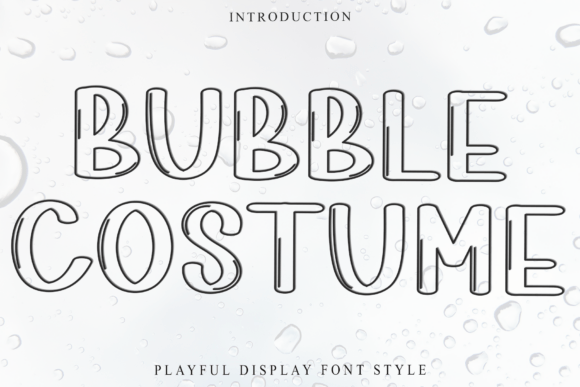
Bubble Custom Font: Elevate Your Designs with a Unique and Eye-Catching Style
In the world of typography, fonts play a crucial role in making designs stand out. One such font that has gained popularity for its distinctive and soft touch is the Bubble Custom Font. Designed to be both beautiful and eye-catching, this font has carved a niche for itself in the realm of creative projects. Whether you’re working on design projects, crafts, or other creative works, Bubble Custom Font is a versatile choice that can add a special character to your creations.
What Makes Bubble Custom Font Special?
The Bubble Custom Font is distinguished by its unique strokes, which give it a special character. This distinctive feature makes it not just another font but a meaningful addition to any design project. The soft and unique touch of this font can transform your designs, making them more appealing to a wide range of audiences. Its versatility is one of its strongest points, allowing it to be used across different artistic and creative fields.
One of the key features of the Bubble Custom Font is its set of various characters. This variety allows designers to experiment with different styles and combinations, making it perfect for projects that require a bit of creativity and innovation. Whether you’re designing a logo, crafting a greeting card, or working on a comprehensive branding project, this font can be a valuable asset.
Applications of Bubble Custom Font
For digital designers, this font can enhance website content, social media graphics, and digital advertisements. Its readability and unique style make it perfect for headlines, titles, and any text that needs to stand out. For crafts and print designs, it can add a personal touch to handmade cards, posters, and flyers.
Why Choose Bubble Custom Font?
There are several reasons why designers and creatives should consider Bubble Custom Font for their projects:
- Unique Style: Its soft and unique touch sets it apart from more traditional fonts.
- Versatility: It can be used in a wide range of projects, from digital designs to crafts.
- Variety: It comes with a set of various characters for creative experimentation.
Choosing Bubble Custom Font can elevate your designs, making them more engaging and eye-catching. In a world where standing out is crucial, this font offers a way to add a distinctive touch to your work.
Using Bubble Custom Font in Design Projects
- Pair it with Other Fonts: Experiment with pairing Bubble Custom Font with other fonts to create a unique contrast.
- Play with Sizes: Use different sizes to create a hierarchy of text, making your design more dynamic.
- Utilize the Characters: Make use of the various characters to add a playful touch to your designs.
Whether you’re a professional designer or a hobbyist, Bubble Custom Font can add a new dimension to your work. Its ease of use and distinctive style make it a valuable tool in any creative project.
Bubble Custom Font is more than just a font; it’s a creative tool that can transform your designs. Its unique and soft touch, coupled with its versatility and compatibility, makes it an excellent choice for a wide range of projects. Whether you’re looking to enhance your digital designs, add a personal touch to crafts, or create memorable branding materials, Bubble Custom Font can help you achieve your goals.
With its distinctive strokes and variety of characters, Bubble Custom Font is poised to become a favorite among designers and creatives. Its ability to make designs stand out and appeal to a broad audience makes it a valuable asset in the world of typography and design.